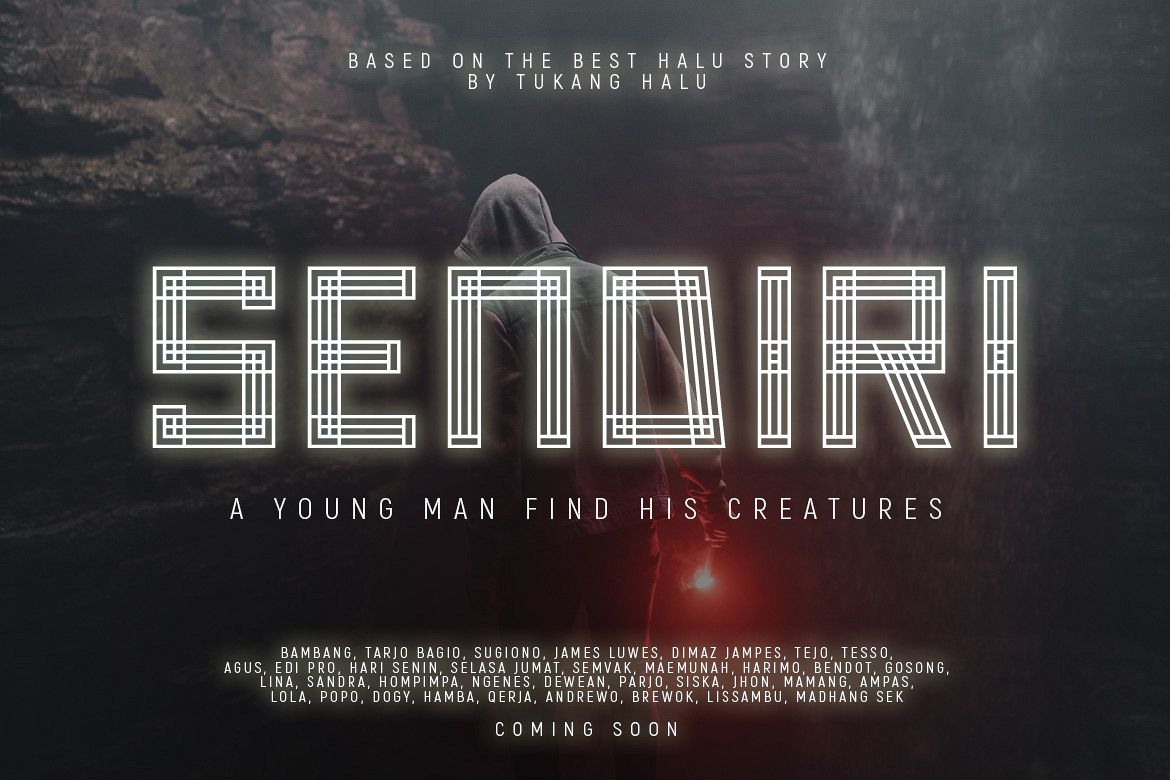
Fourlines
Fourlines is a display font that is suitable for use on any media and your project purposes such as headline text, album cover, Headline text, book cover, children t-shirt design, promotion, and much other design projects. This font also includes multilingual support ÀÁÂÃÄÅÇÐÈÉÊËÌÍÎÏÑØÒÓÔÕÖÙÜÚÛÝÆ. So you can spread your message globally.